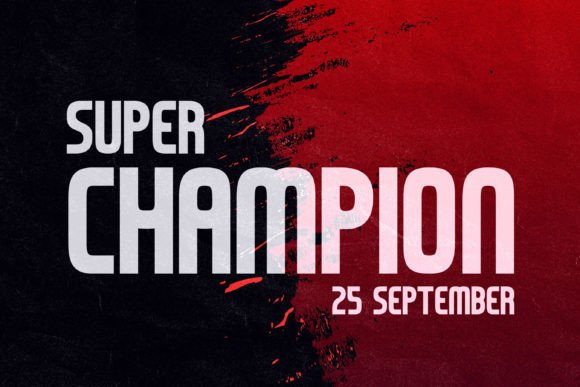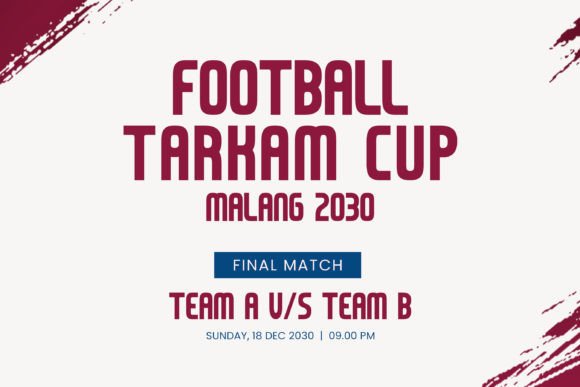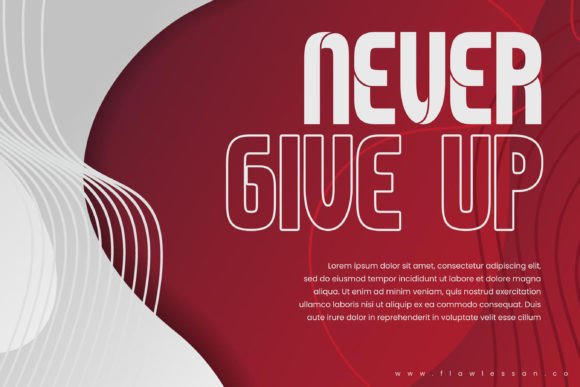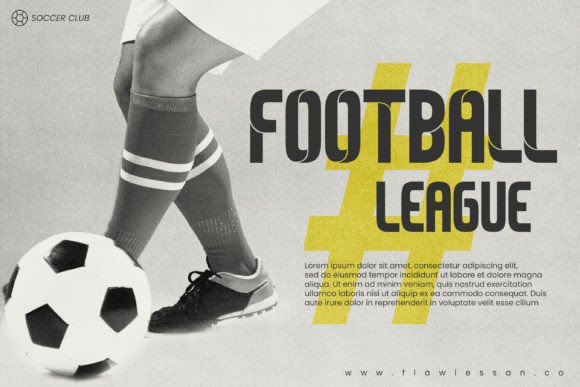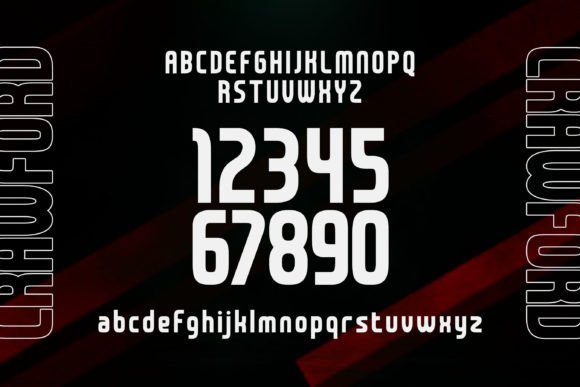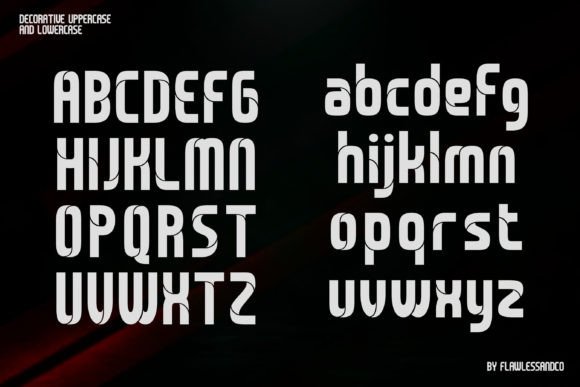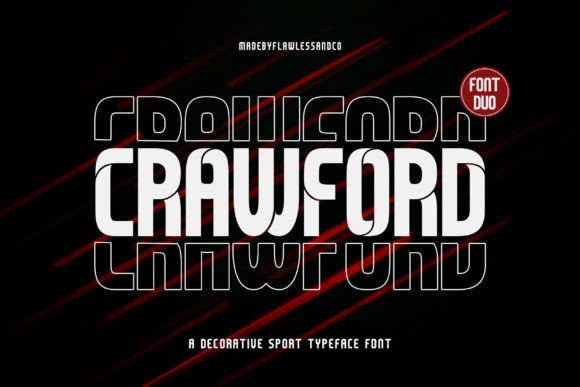
Unleash the Power of Sports Typography with Crawford Font
Are you a designer or crafter looking for a font that embodies the dynamic energy and excitement of sports? Look no further than Crawford Font, a bold and athletic typeface designed specifically for sports branding, team jerseys, posters, and more. In this article, we’ll dive into the world of Crawford Font, exploring its features, benefits, and uses, and why it’s the perfect choice for your next sports-related design project.
Introducing Crawford Font
Crawford Font is a sports basketball font that captures the essence of the game with its bold and athletic letterforms. Designed to convey a sense of power, energy, and excitement, Crawford is perfect for designers and crafters who want to create stunning sports-related designs that stand out from the crowd. Whether you’re working on a team jersey, poster, or social media graphic, Crawford Font is sure to make your designs pop.
Key Features of Crawford Font
- Bold and Athletic Letterforms: Crawford Font features bold and athletic letterforms that are designed to convey a sense of power and energy.
- High-Quality Design: Crafted with precision and attention to detail, Crawford Font is a high-quality typeface that’s perfect for professional designs.
- Versatile: Crawford Font is versatile and can be used for a variety of sports-related designs, including team jerseys, posters, social media graphics, and more.
- Easily Customizable: Crawford Font is easily customizable, allowing you to adjust the font size, color, and style to fit your design needs.
Benefits of Using Crawford Font
So, why choose Crawford Font for your sports-related design projects? Here are just a few benefits of using this powerful typeface:
- Instant Recognition: Crawford Font is designed to grab attention and create instant recognition. Its bold and athletic letterforms make it perfect for creating eye-catching designs that stand out from the crowd.
- Professional Look and Feel: Crawford Font gives your designs a professional look and feel, perfect for sports teams, leagues, and organizations looking to establish a strong brand identity.
- Time-Saving: With Crawford Font, you can create stunning sports-related designs in no time. Its versatility and customizability make it easy to use and adjust to fit your design needs.
Uses of Crawford Font
Crawford Font is perfect for a variety of sports-related design projects, including:
- Team Jerseys: Create stunning team jerseys with Crawford Font that will make your team stand out on the field or court.
- Posters: Design eye-catching posters for sports events, tournaments, or leagues with Crawford Font.
- Social Media Graphics: Create engaging social media graphics with Crawford Font that will grab the attention of sports fans and enthusiasts.
- Sports Branding: Establish a strong brand identity for your sports team, league, or organization with Crawford Font.
Tips and Tricks for Using Crawford Font
Here are a few tips and tricks for getting the most out of Crawford Font:
- Experiment with Colors: Try out different color combinations to find the perfect match for your design.
- Play with Font Sizes: Experiment with different font sizes to create visual hierarchy and emphasis in your design.
- Combine with Other Fonts: Combine Crawford Font with other fonts to create a unique and visually appealing design.